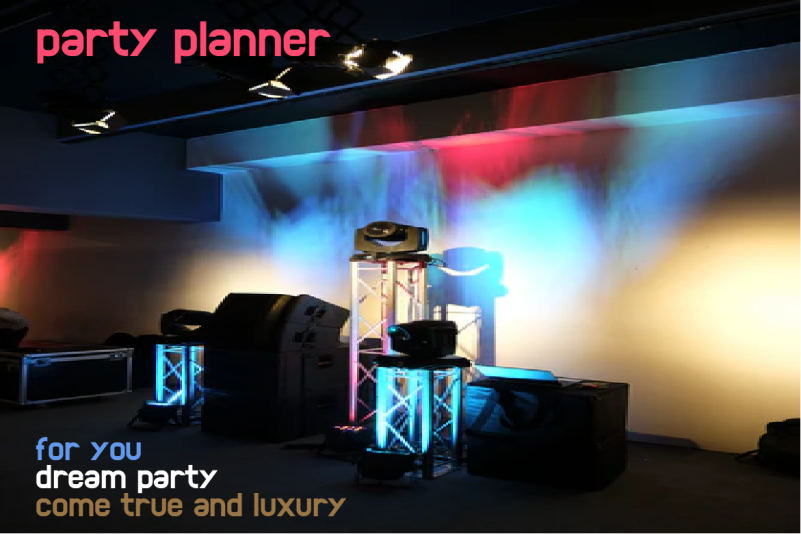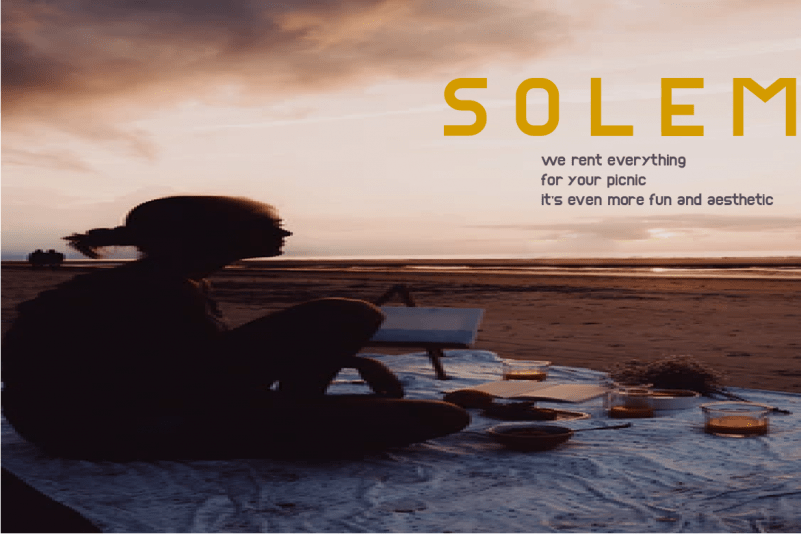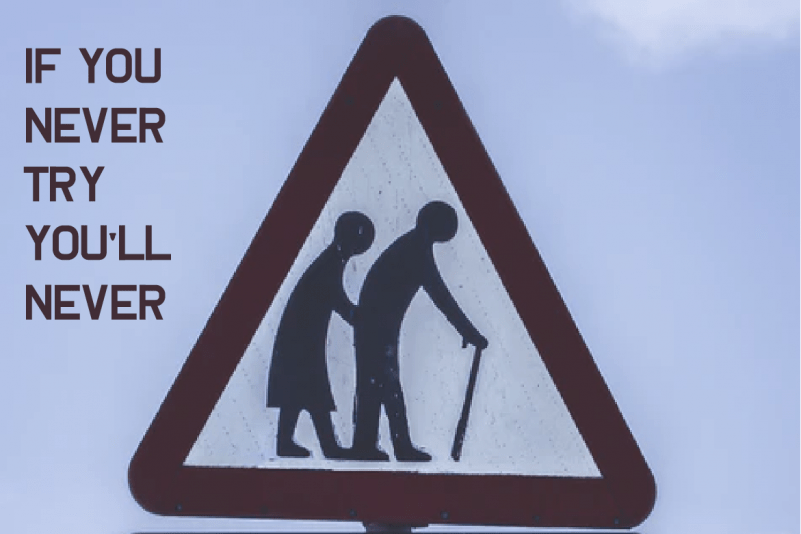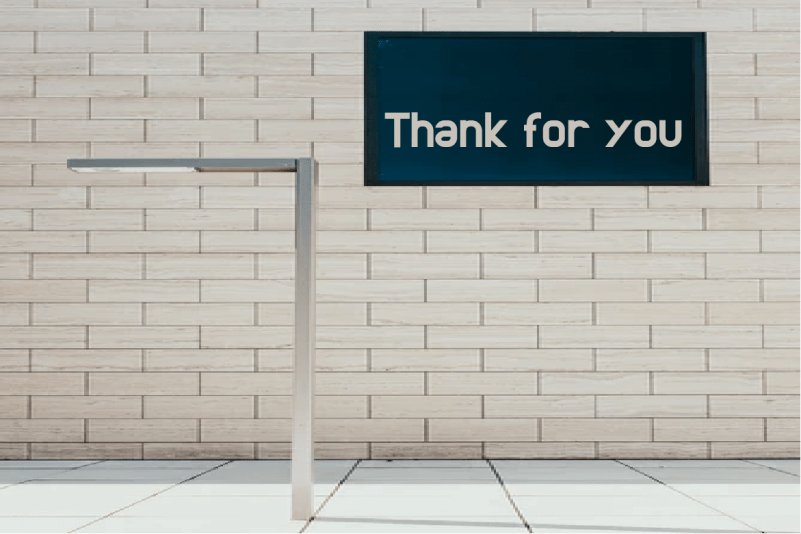
Plusher Font
Pleshur Sans Serif Font
This font Created for text display purposes, pleshur brings a modern and powerful feel to your designs. With a fancy writing style, make this font suitable as the main text/header text on a website template or layout design. The luxurious Pleshur also includes an alternative glyph that makes it easy for you to make adjustments.